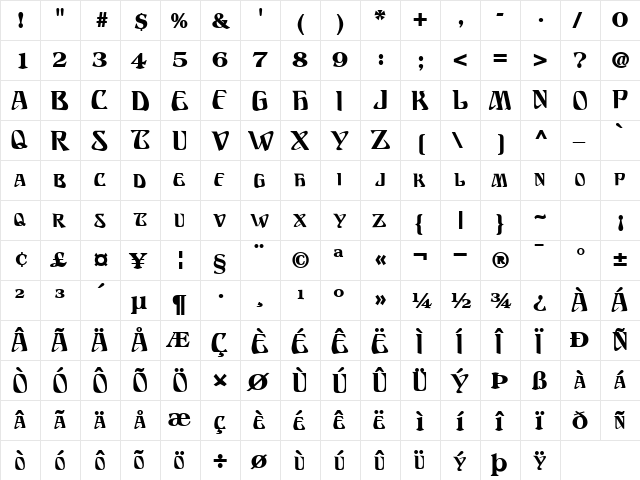
BillionsFont Bold
Design Context for BillionsFont Typeface
BillionsFont is a composed and adaptable typeface that performs quietly and consistently across a wide range of design contexts. The heavy weight commands attention and anchors typographic hierarchies.